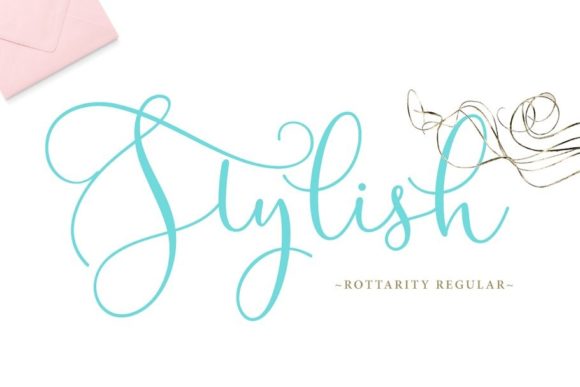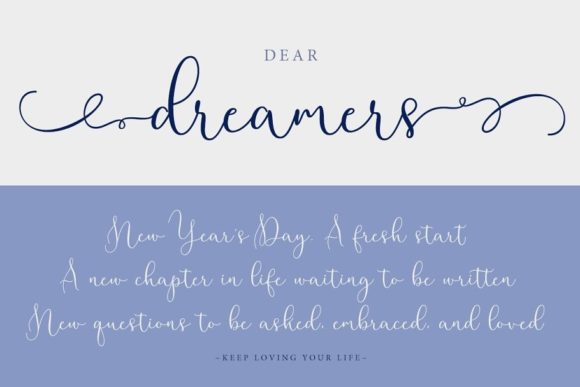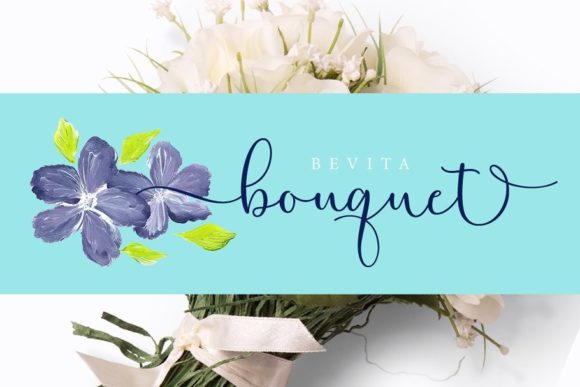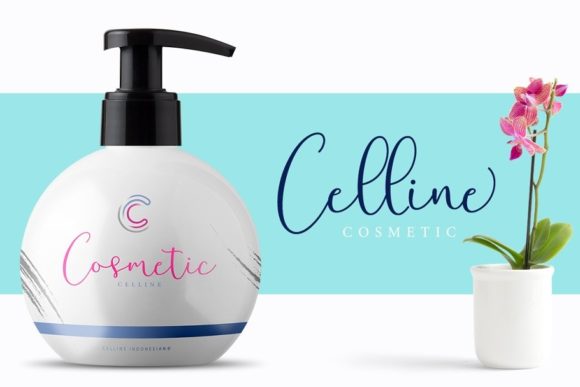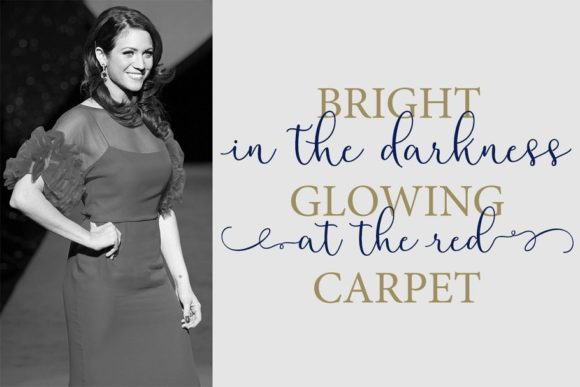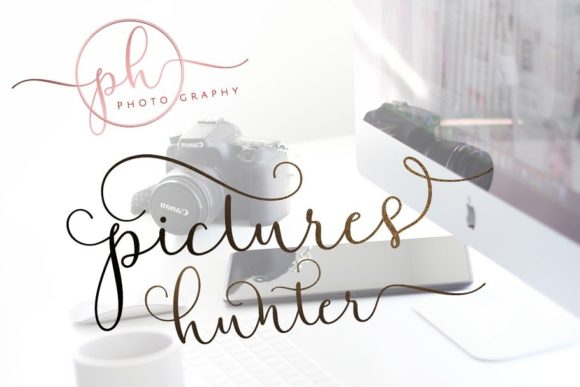
Introduction to Rottarity Font
Have you ever found yourself scrolling through social media, and suddenly, you stumble upon a post that stops you in your tracks? Maybe it’s the elegant typography, the way the words seem to dance across the screen, or the clever use of color. For designers, these moments are the spark that ignites a creative project. And, for those who crave that perfect touch, Rottarity Font is about to become their new favorite design resource.
With its classy, elegant, and modern look, Rottarity Font is the perfect addition to any design project. Whether you’re creating a logo, branding materials, invitations, or social media posts, this beautiful script font is sure to elevate your work to the next level. And, with its high-quality design and transparent background, you can be sure that your creative vision will shine through.
- High-quality font with a unique, modern design, perfect for creative projects.
- Comes with a transparent background, allowing for easy customization and blending with any design.
- Designed to be versatile, suitable for use in various creative projects, including logos, graphics, and typography-based designs.
Honest Review: Rottarity Font
I recently had the chance to try out the Rottarity Font, and I must say it’s been a game-changer for my design projects. The transparent background feature has been particularly useful, allowing me to easily layer the font over images and create visually appealing designs.
One of the things that really stands out about the Rottarity Font is its high quality. The lines are crisp, the characters are well-formed, and the overall aesthetic is polished and professional. I’ve been using it for a variety of creative projects, from social media graphics to website headers, and it’s performed flawlessly.
- Transparent background option for seamless layering
- High-quality design with crisp lines and well-formed characters
- May not be suitable for very small text sizes due to the transparent background
- Limited font styles and weights available
- May require some tweaking to get the perfect look in certain design scenarios
Overall, I’m thoroughly impressed with the Rottarity Font. It’s a solid addition to any designer’s toolkit, and I’d highly recommend it for anyone looking for a high-quality, free design resource.
Tips for Getting the Most Out of Rottarity Font
Experiment with different font sizes and styles to create unique designs. Use the font in combination with other design resources, such as graphics and images, to create a cohesive look.
Rottarity Font is perfect for creative projects, such as graphic design, branding, and advertising. It’s also great for presentations, documents, and social media graphics. With its high quality and transparent background, it’s a valuable design resource for any project.